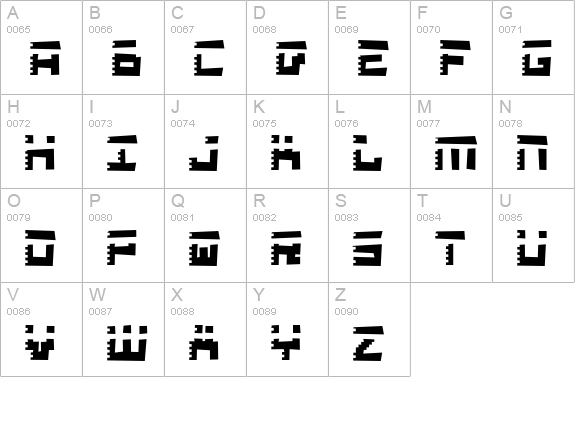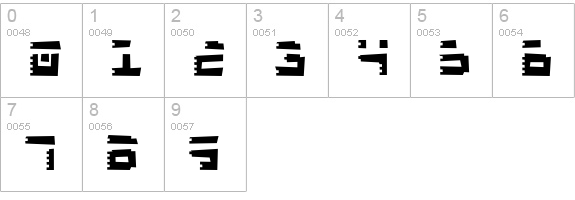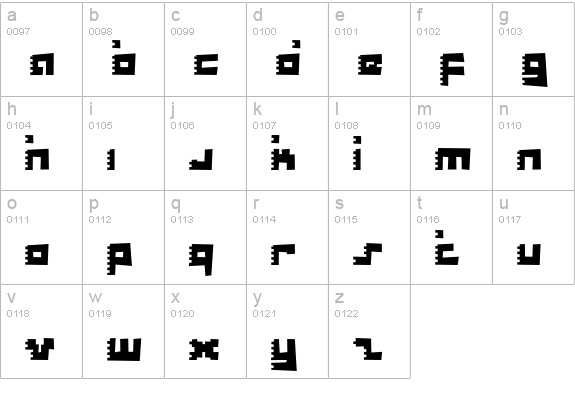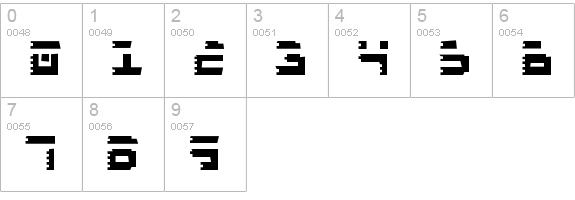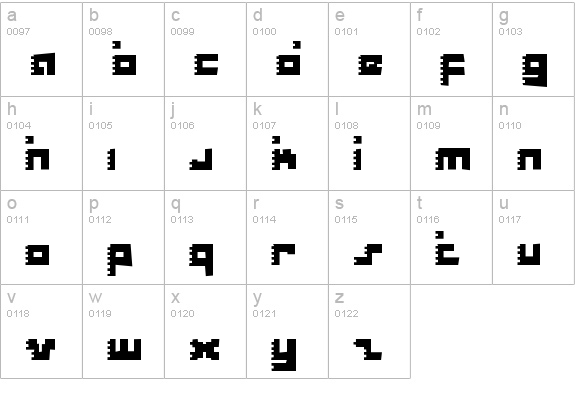
Introducing Roid Rage Rough font, a bold and dynamic typeface designed to pack a punch in your design projects. With its edgy and rugged appearance, this font exudes a sense of power and intensity, making it perfect for projects that require a strong and impactful look. The rough texture of the letters adds a gritty and raw quality, giving your designs a unique and rebellious edge. Best of all, Roid Rage Rough font is available for free download at FontsMarket.com. Whether you're working on posters, logos, or branding materials, this font will help you make a bold statement and stand out from the crowd. Download Roid Rage Rough font today and unleash its untamed energy in your designs!